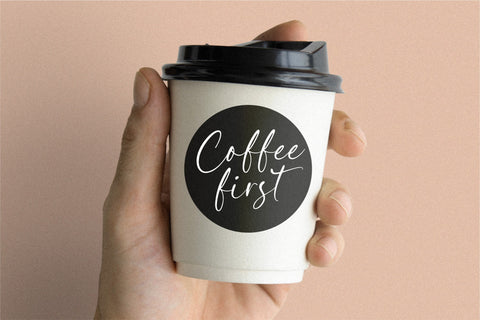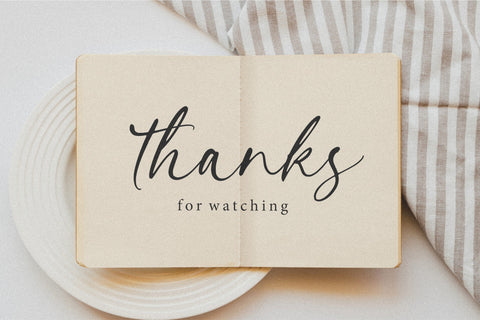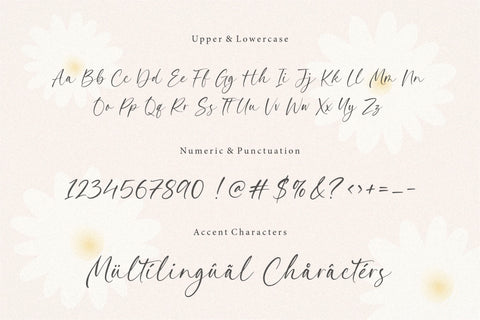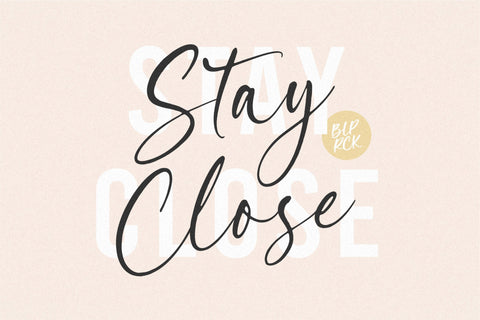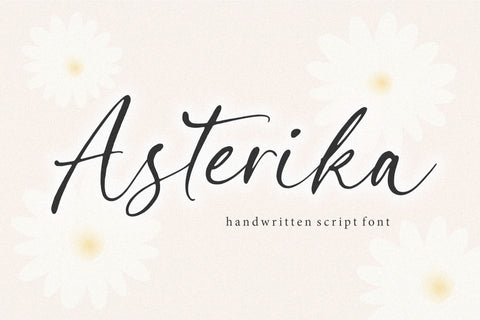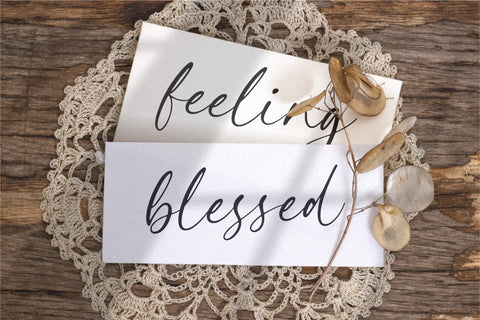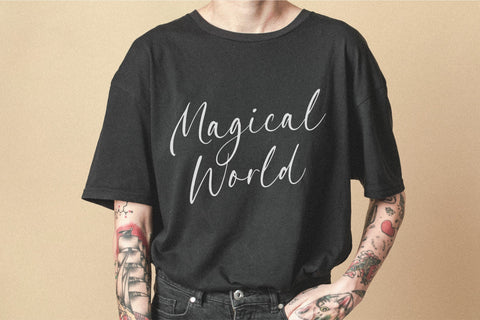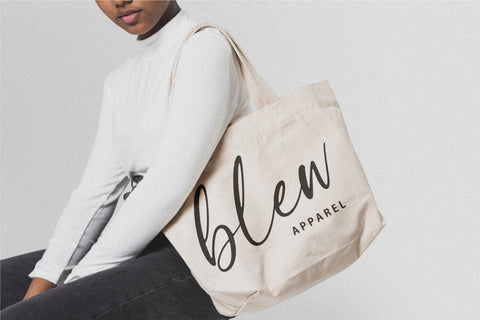
Asterika Handwritten Script Font
Proudly Present, Asterika Font.
Asterika is a Handwritten Script Font.
Asterika is a superb handwritten font that will make your work stand out through its elegant and curvy lines. It is perfect for product packaging, branding project, magazine covers, social media, wedding, or just used to express words above the background.